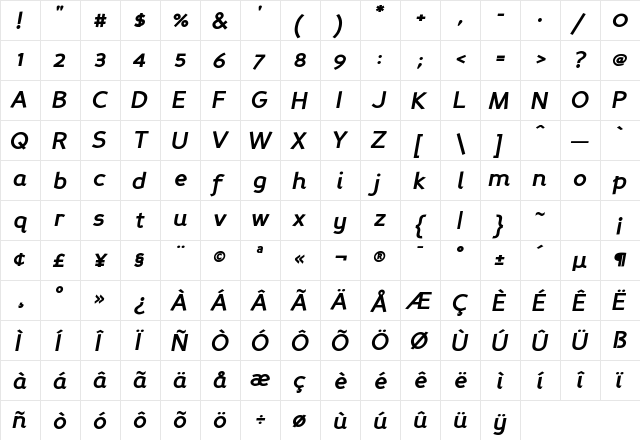
Perspective Sans Bold Italic
Design Context for Perspective Sans Typeface
Perspective Sans offers clean, dependable letterforms without strong stylistic allegiance, making it a practical choice for designers who need flexibility. The slanted form adds forward momentum and visual energy. Its bold stroke weight gives it real presence on the page.
Pro Tip: Use Perspective Sans for emphasis, pull quotes, and subheadings where its slanted energy can add rhythm to the layout.